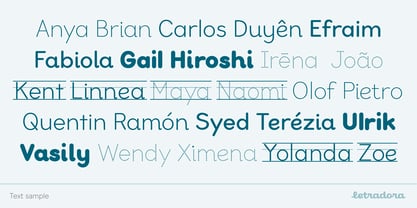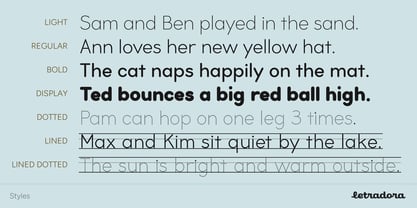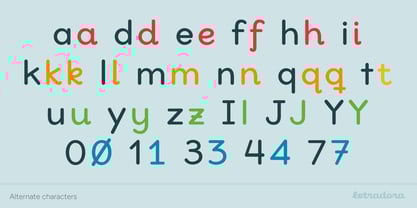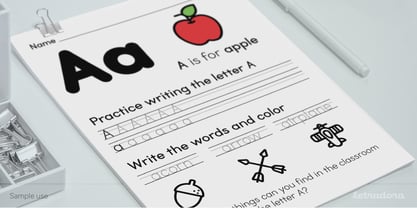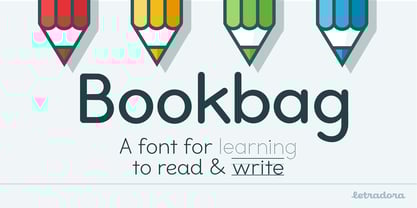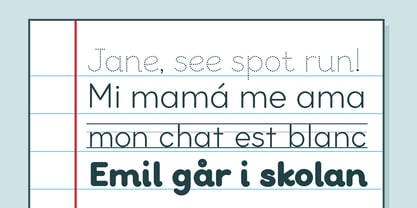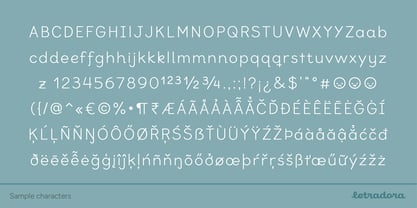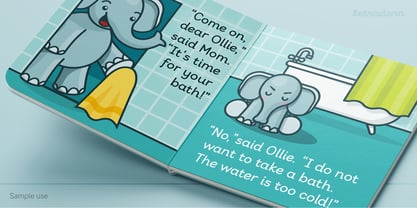
Bookbag
por Letradora
La familia tipográfica Bookbag fue diseñada por Kemie Guaida Ortega y publicada por Letradora. Bookbag contiene 14 estilos y opciones de paquete familiar.
Bookbag is a type family designed to help children learn to read and write. Its clear, friendly letterforms are carefully differentiated to support early reading, while remaining natural and approachable for handwriting practice. The family includes four weights from Light to ExtraBold, as well as dotted and lined versions for tracing and writing exercises. Multiple alternate glyphs support different teaching methods and handwriting conventions, accessible via OT stylistic alternates or dedicated Alt styles. Bookbag offers broad Latin language support, making it suitable for multilingual classrooms and educational materials.
Diseñadores: Kemie Guaida Ortega
Editorial: Letradora
Fundición: Letradora